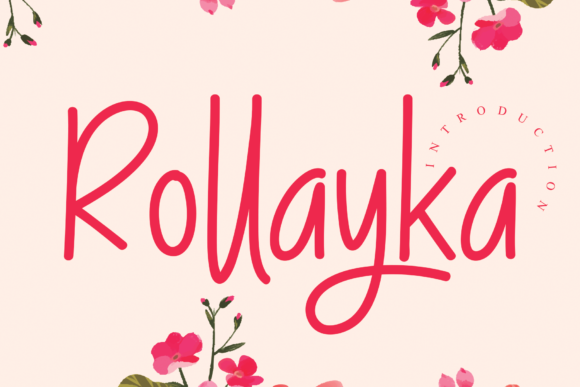
Rollayka
About Rollayka Font
Rollayka is a tall and friendly handwritten font. Fall in love with its incredibly versatile style and use it to create spectacular designs!